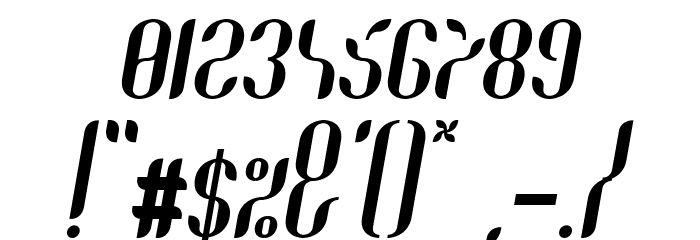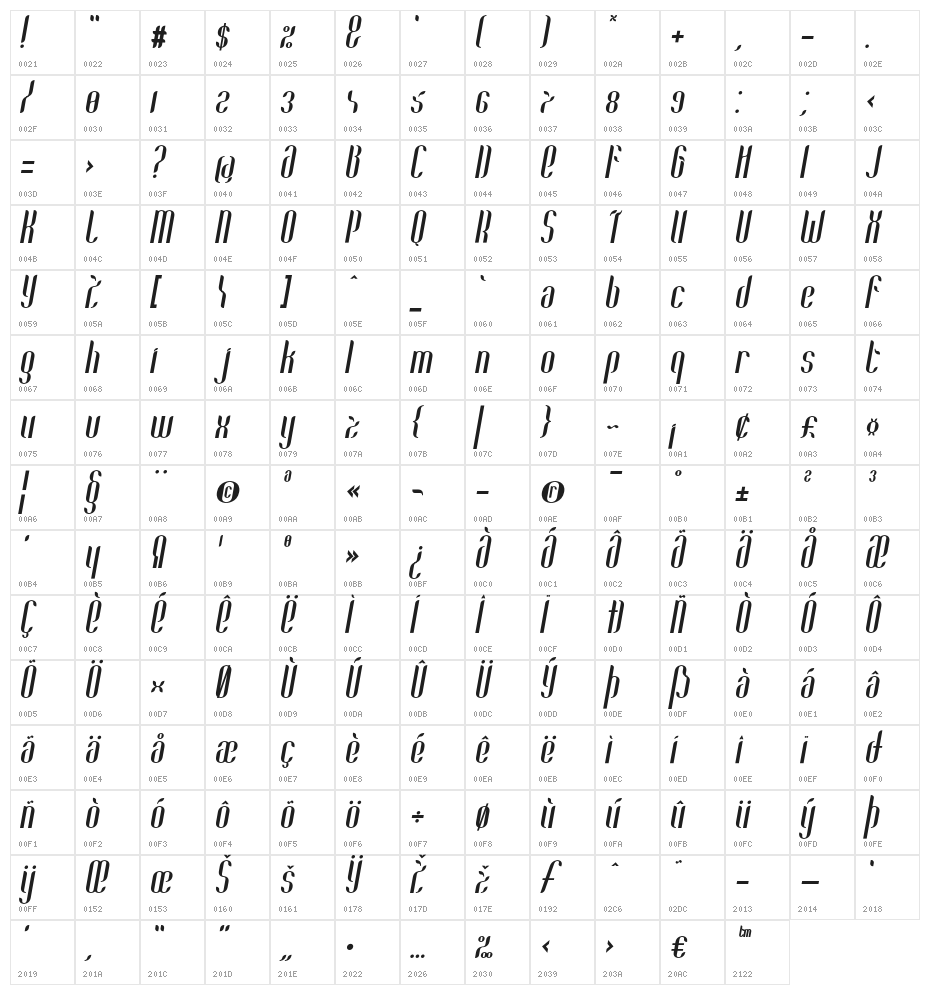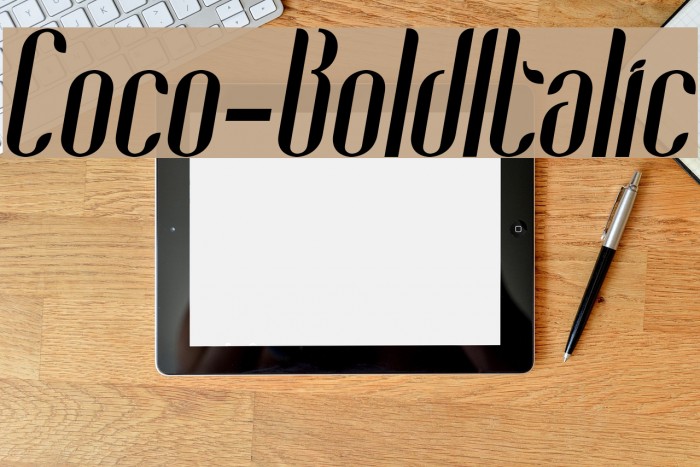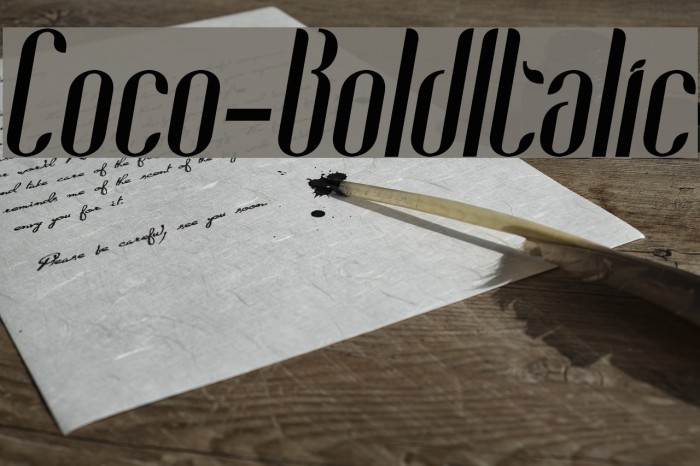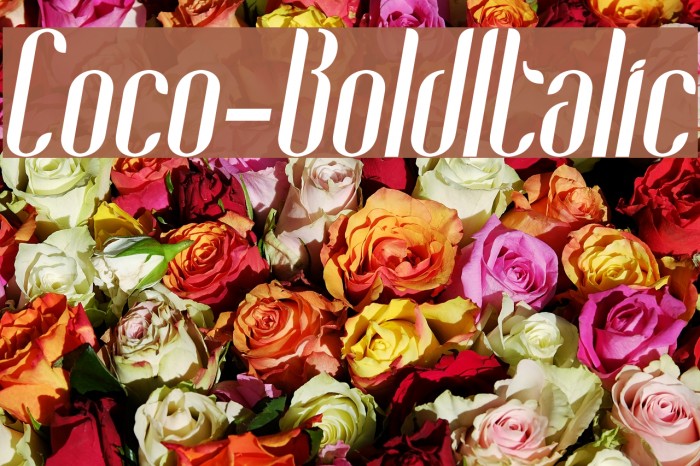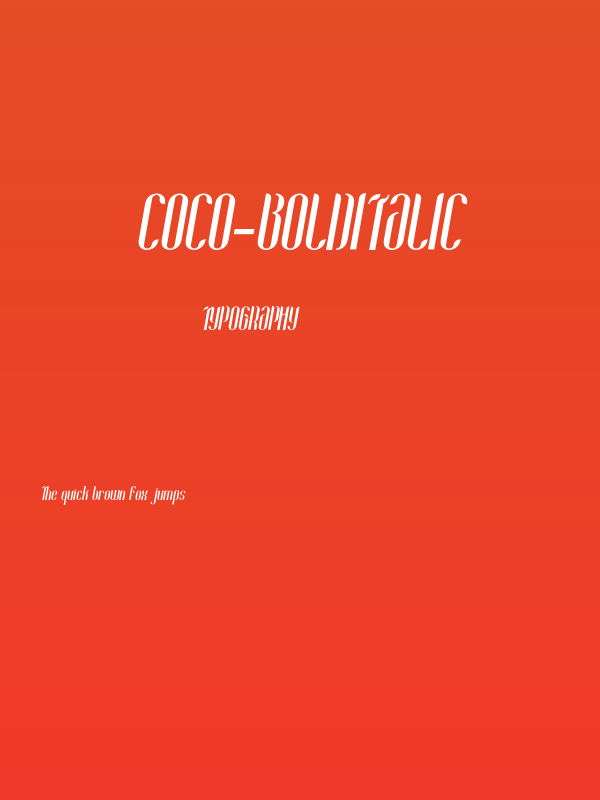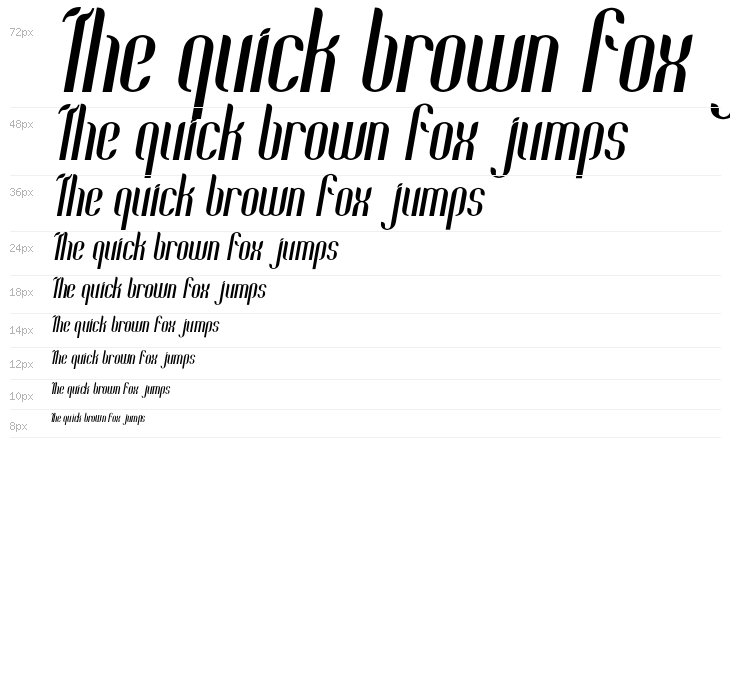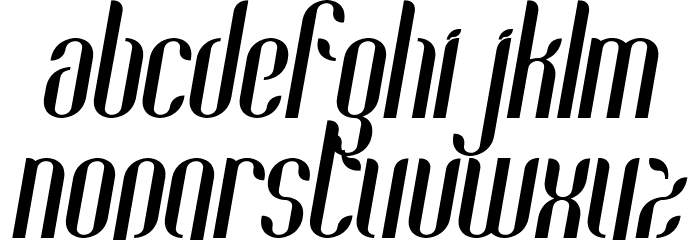
Coco-BoldItalic Font
Coco-BoldItalic Description
This font exhibits a bold and italicized style with a modern and dynamic flair. The characters are elongated and slightly condensed, giving a sleek and sophisticated appearance. The strokes are thick and consistent, providing a strong visual impact. The italic slant adds a sense of movement and elegance, making it suitable for attention-grabbing designs. The uppercase and lowercase letters maintain a uniform height, enhancing readability while preserving the font's unique character. The numerals and special characters are designed to match the overall aesthetic, ensuring a cohesive look across all text elements.